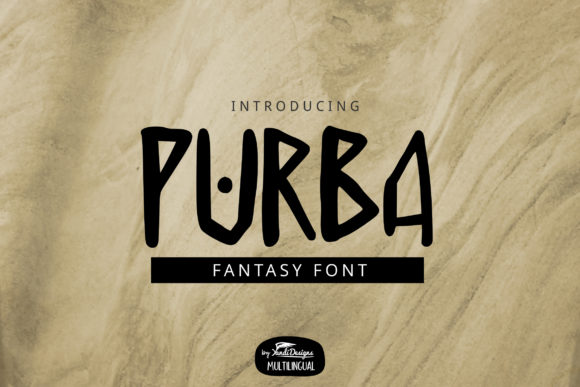
Purba Font: A Unique and Geometrically Shaped Display Font
Unleash your creativity with Purba, a captivating display font that exudes a charming and playful vibe. Each character is meticulously crafted with geometric precision, adding a touch of artistry to your designs.
Indulge in the world of Purba, where your words and ideas take center stage. This extraordinary font is the perfect companion for a myriad of projects, adding a dash of whimsy to greeting cards, an enchanting touch to invitations, and a captivating allure to social media posts.
With Purba, you have the power to transform your designs into miniature masterpieces. Its bold and eye-catching forms demand attention, while its subtle nuances add an air of sophistication. Embrace the versatility of Purba and watch your creations blossom with a touch of geometric flair.
Let Purba be your faithful companion, guiding you through the realm of design with confidence and flair. Its user-friendly nature makes it accessible to all, from seasoned designers to aspiring creatives.